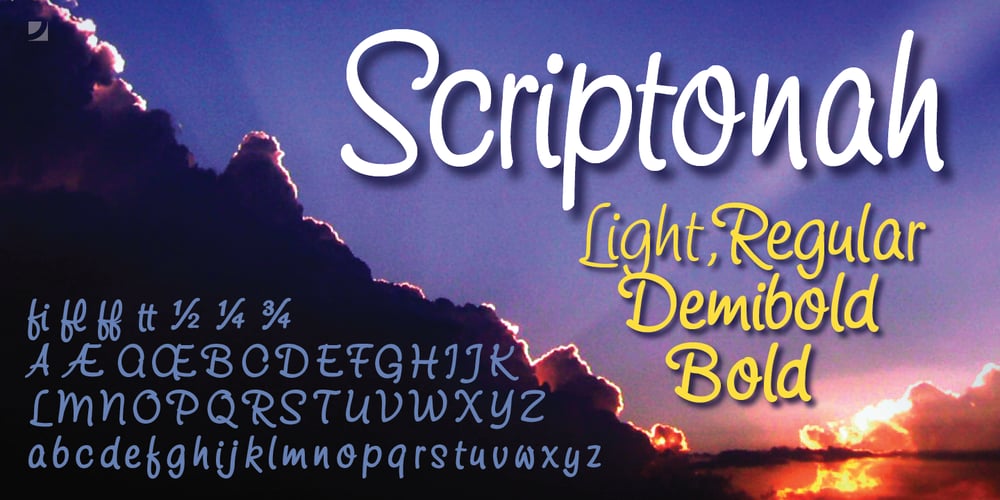
Scriptonah Font Family was designed by John Nahmias and published by Jonahfonts. Scriptonah contains 4 styles and family package options. A script font family which include 4 variations, Light, Regular, DemiBold and Bold. An easily-legible font useful for notes, invitations and announcements, also for the package designer Read John Downers’ article in Typographica®: ‘Our Favorite Typefaces of 2007’ https://typographica.org/typeface-reviews/scriptonah-and-casual-brush/